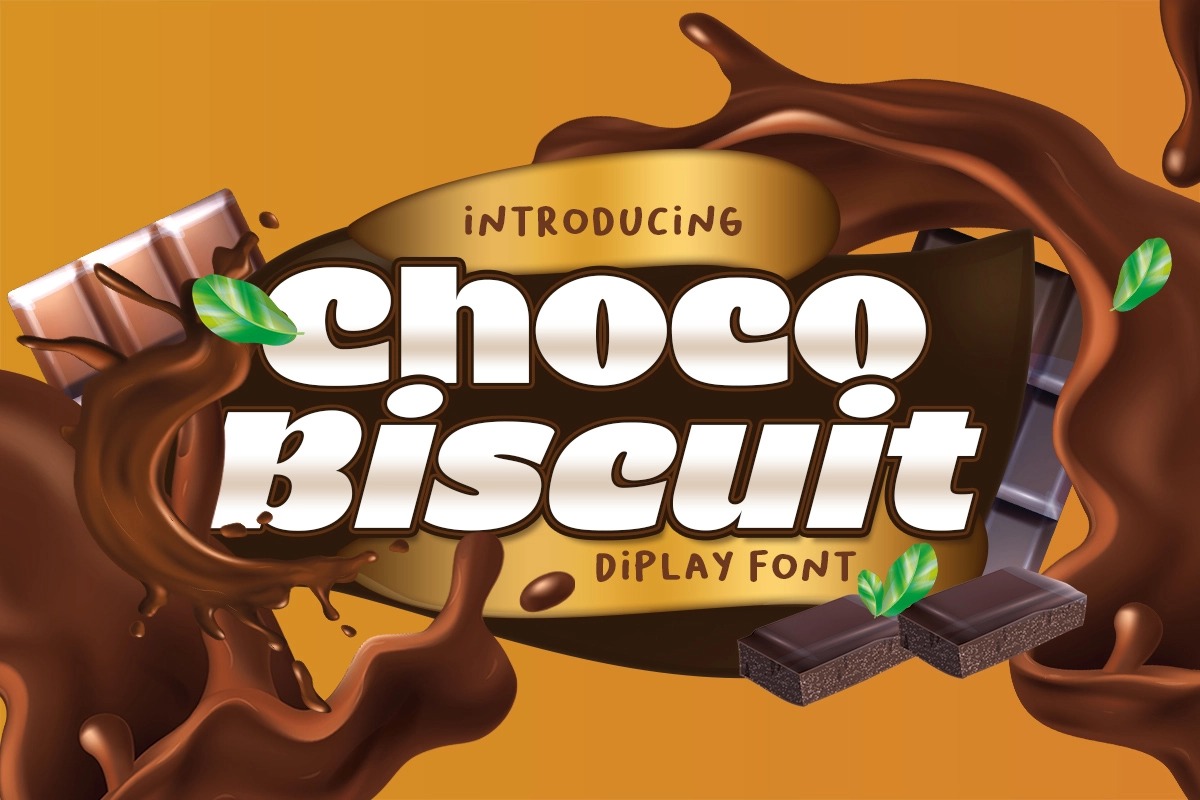
Choco Biscuit Sans Serif Font
If you’re looking for a sans serif font to attract your audiences or customers then we’ve got the font for you! Choco Biscuit is a bold retro style sans serif font with strong character and soft features. It is perfectly suited for stationery, logos, t-shirt, paper, print design, website header, photo frame, flyer, music cover, poster, image slider, and much more.